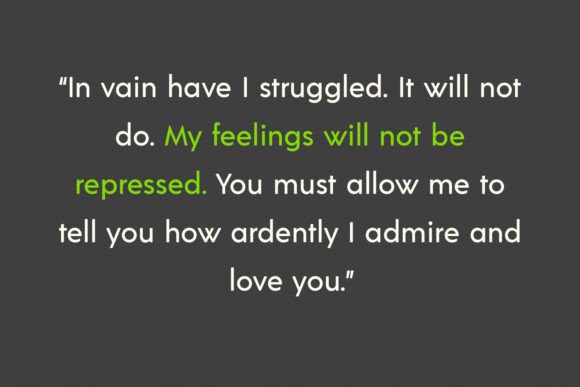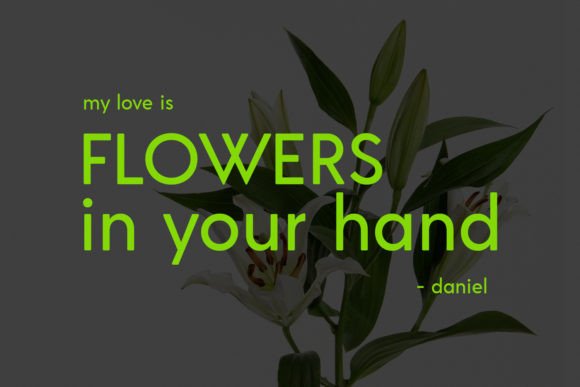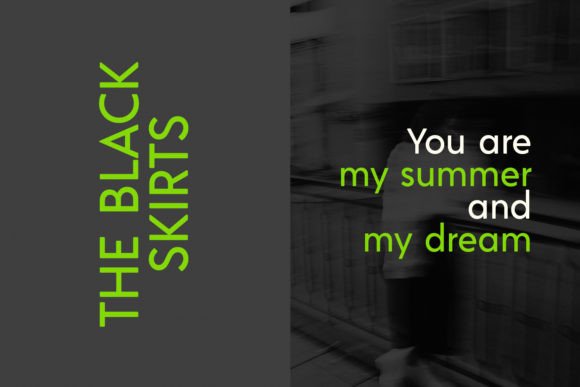
Introduction to Salimo Font
Have you ever been in the middle of a creative project, staring at a blank canvas or a screen, and suddenly, the perfect font pops into your mind? For designers, this moment of inspiration can be a game-changer. That’s exactly what happened when I discovered the Salimo Font – a modern gothic sans display font that’s as versatile as it is striking.
With its regular stroke, fun character, and thoughtful ligatures and alternates, Salimo Font is a treasure trove of design possibilities. Whether you’re working on a logo design, crafting a social media post, or creating a movie title, this font is sure to elevate your project to the next level. And the best part? It’s available for free download, making it an invaluable resource for designers of all levels.
Key Features of Salimo Font
- Perfect for use in logos, branding materials, and other design elements where a clean and modern look is desired.
Honest Review: Salimo Font
I recently stumbled upon the Salimo Font while searching for a high-quality design resource for my creative project. As a designer, I’m always on the lookout for unique and versatile fonts to elevate my designs. Salimo Font definitely caught my attention, and I was excited to dive in and explore its features.
What works well: ✨ The Salimo Font has a beautiful, modern aesthetic that’s perfect for a wide range of creative projects. It’s highly legible and comes in a variety of weights, making it easy to customize to suit your design needs. I also appreciate that it’s available for free download, which is a huge bonus for designers on a budget.
What doesn’t work well: ⚠️ One of the limitations of the Salimo Font is that it doesn’t have a transparent background option, which can make it difficult to use in certain design scenarios. Additionally, the font may not be as suitable for very small or large text sizes, so be sure to test it out in different contexts before using it in your project.
Overall, I’m really impressed with the Salimo Font, and I think it’s a great addition to any designer’s toolkit. It’s a high-quality font that’s easy to use and customize, making it perfect for a wide range of creative projects.
- Modern aesthetic
- Available in various weights
Salimo Font